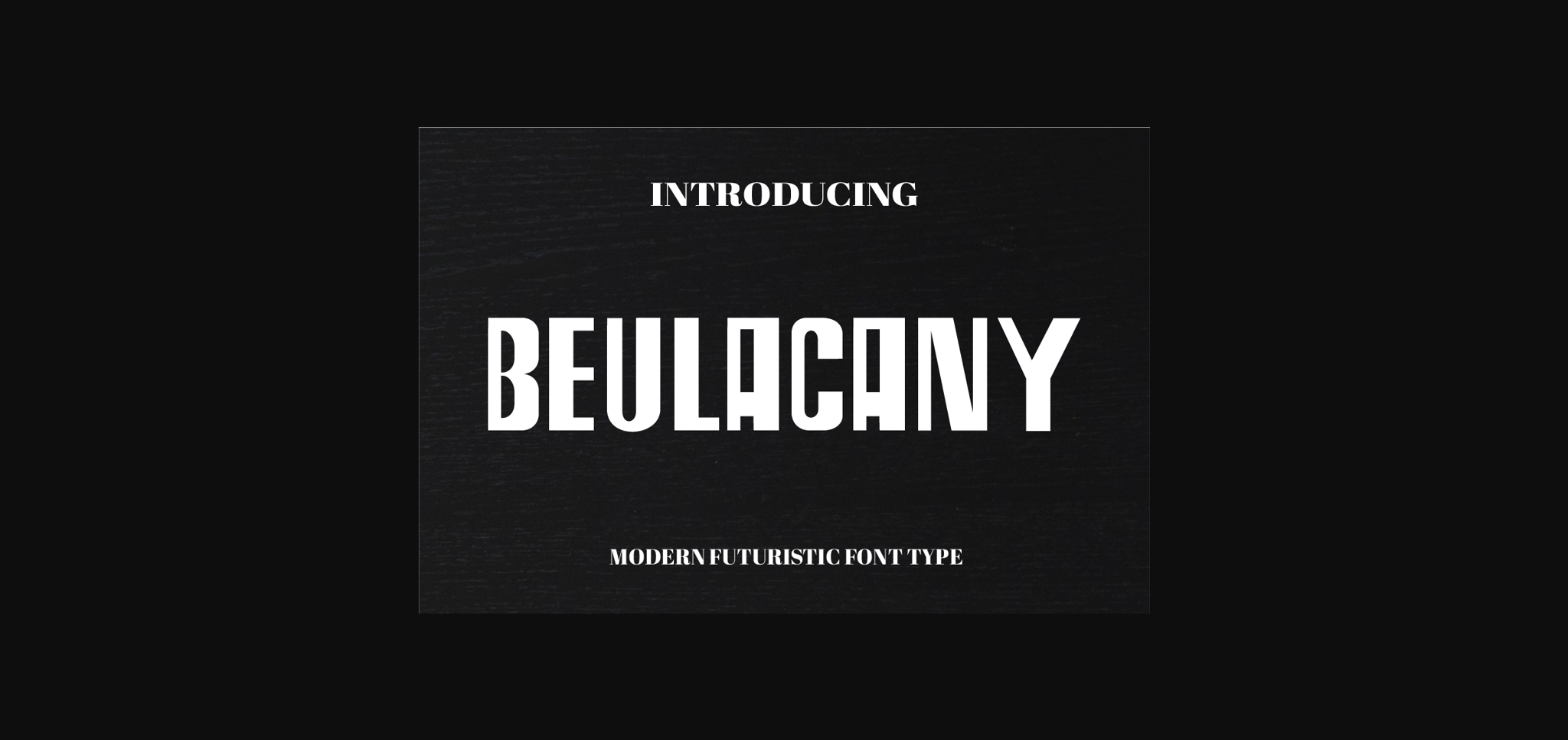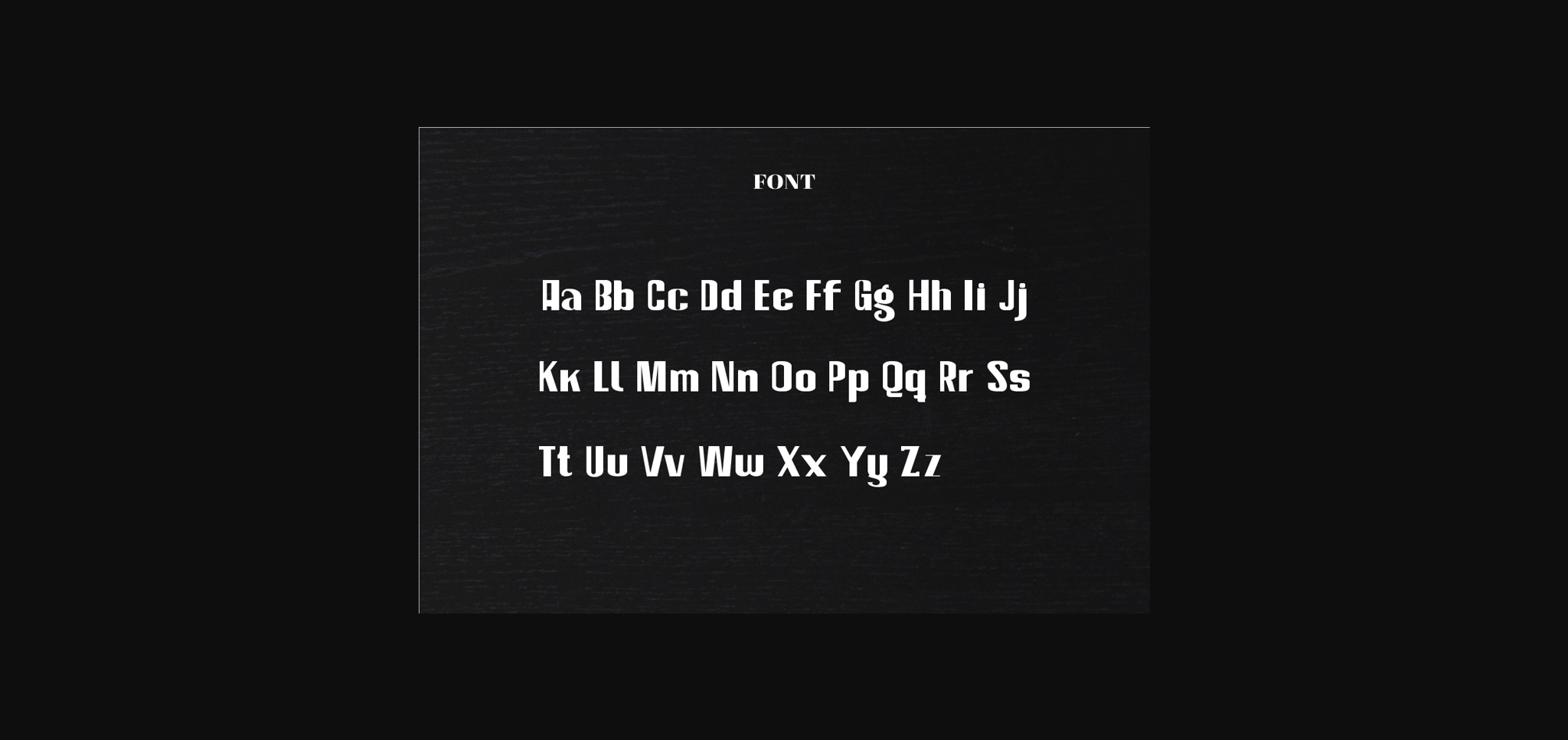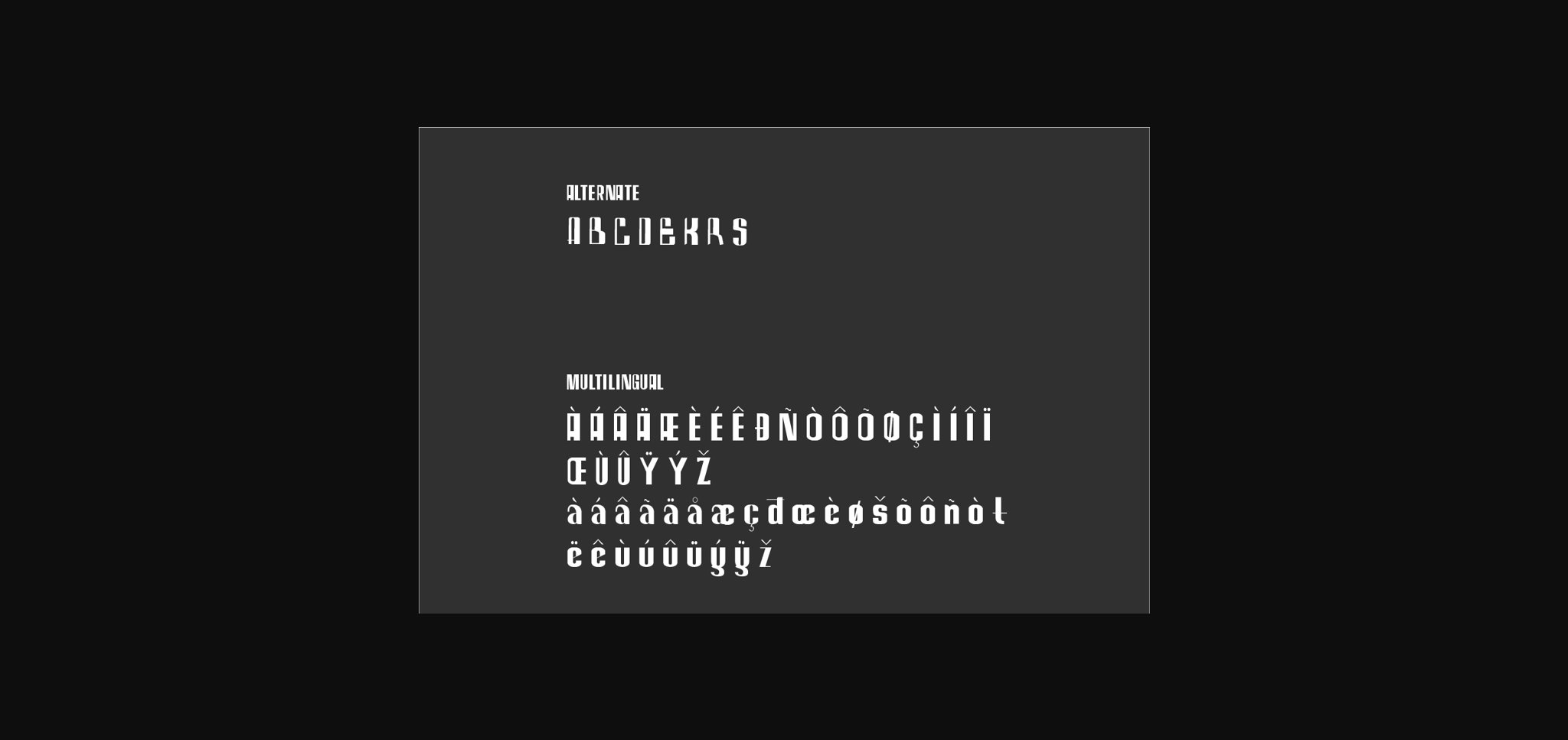
About Beulacany Font
Introducing, this name font is Beulacany, this is a futuristic font, font inspired by sans serif and the visual technology that we can find in logos, sci-fi movies, games, and the present gadgets. Designed with a minimalist style and unique letterforms, a perfect choice to use on logos, labels, posters, packaging, books, movies, presentations, games, and much more.